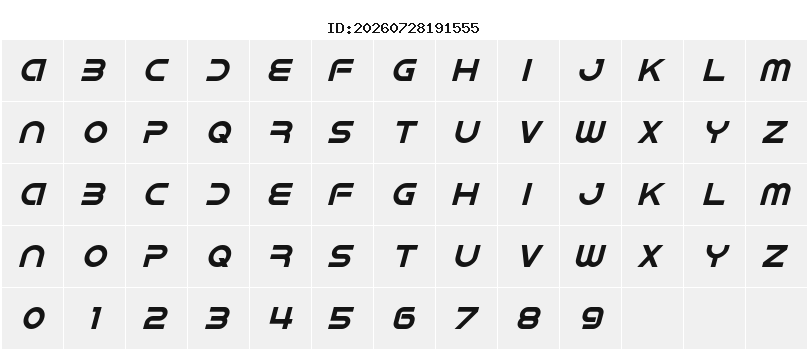
• Font Name: IDroid
• Full Font Name: IDroid Italic
• Version: Version 1.00 January 15, 2015, initial release
• Designer: Neale Davidson
• Manufacturer: Pixel Sagas
About IDroid.otf
IDroid.otf is a modern, elegant sans-serif font designed for ultimate readability and visual harmony. Perfect for branding, headlines, web design, and print materials.